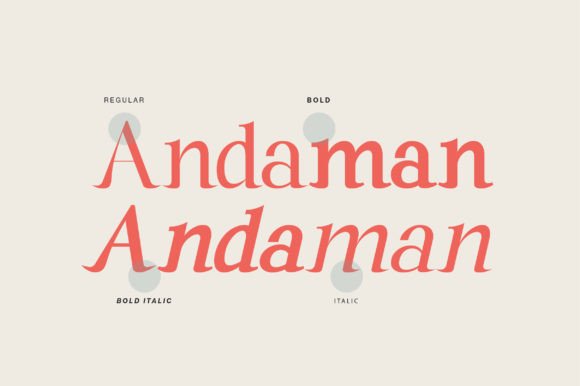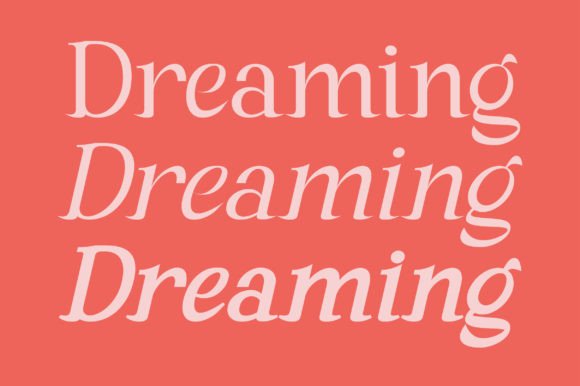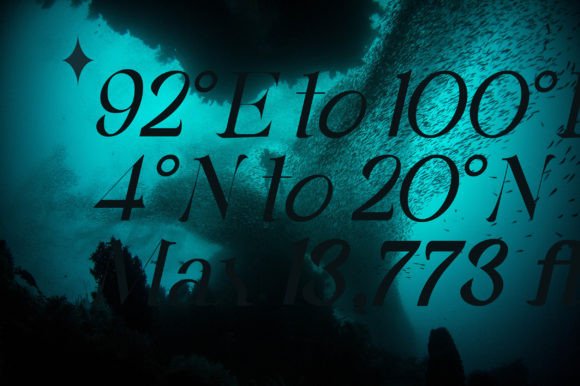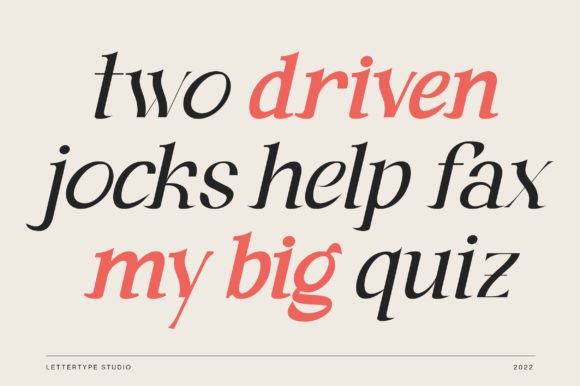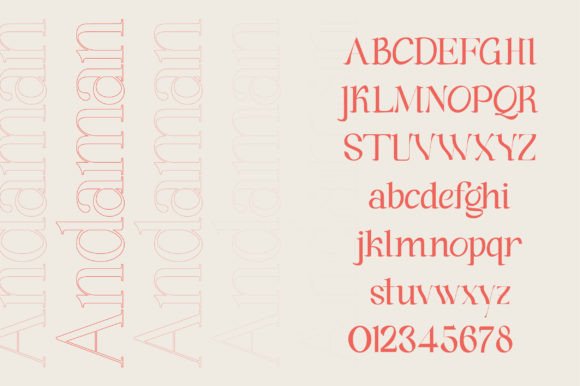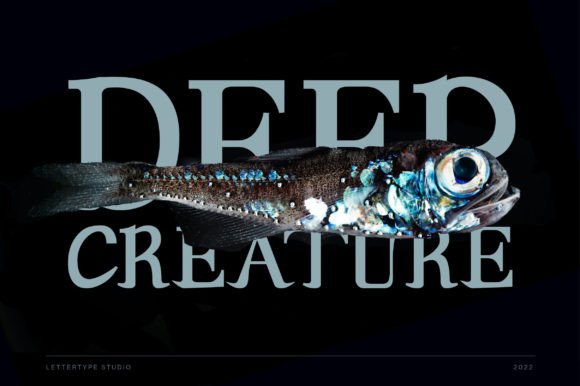
Introducing Andaman: The Modern Serif Font That’s Making Waves
Ah, the eternal quest for the perfect font! I still remember the time I was working on a branding project for a luxury fashion client. I had spent hours agonizing over logo designs, color palettes, and textures, but something was missing. It wasn’t until I stumbled upon an amazing serif font that the entire design came together. Today, I’m excited to introduce you to “Andaman”, an experimental and modern serif font that’s sure to elevate your designs.
The Birth of Andaman
Andaman was born out of a passion for creating unique and versatile typography. Inspired by the beauty of the Andaman Sea, our designer sought to craft a font that embodies the elegance and sophistication of the ocean’s waves. With its clean lines, subtle curves, and distinctive serifs, Andaman is the perfect blend of modernity and classic charm.
What I Love About Andaman
- ✨ Unique character set: Andaman’s glyphs are carefully crafted to provide a distinctive look that’s both modern and elegant.
- ✅ Highly legible: Whether you’re using it for body text or headings, Andaman’s clear and readable design ensures that your message gets across.
- 💡 OpenType features: Andaman supports a range of OpenType features, including stylistic alternates, ligatures, and more.
- 🎨 Versatile: From logo design to branding, clothing, signage, posters, wedding invitations, cosmetics, and fashion, Andaman is the perfect font for a wide range of creative projects.
While Andaman is an amazing font, it’s not without its quirks. Here are a few things to keep in mind:
- 🤔 Limited language support: Andaman currently supports a limited range of languages. If you need to work with a specific language, be sure to check the font’s capabilities.
- ⚠️ Glyph compatibility: Some glyphs may not work seamlessly with certain software or platforms. Be sure to test the font thoroughly before using it in your project.
Q: What is Andaman?
A: Andaman is a modern serif font designed for creative projects. It’s characterized by its clean lines, subtle curves, and distinctive serifs.
Q: Is Andaman suitable for body text?
A: Yes, Andaman is highly legible and suitable for body text. However, it’s also a great choice for headings, titles, and display text.